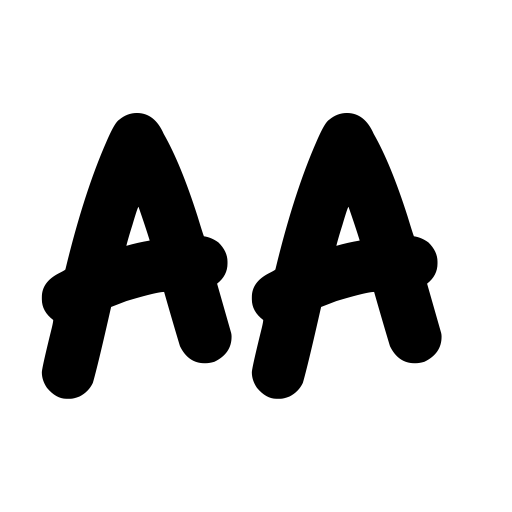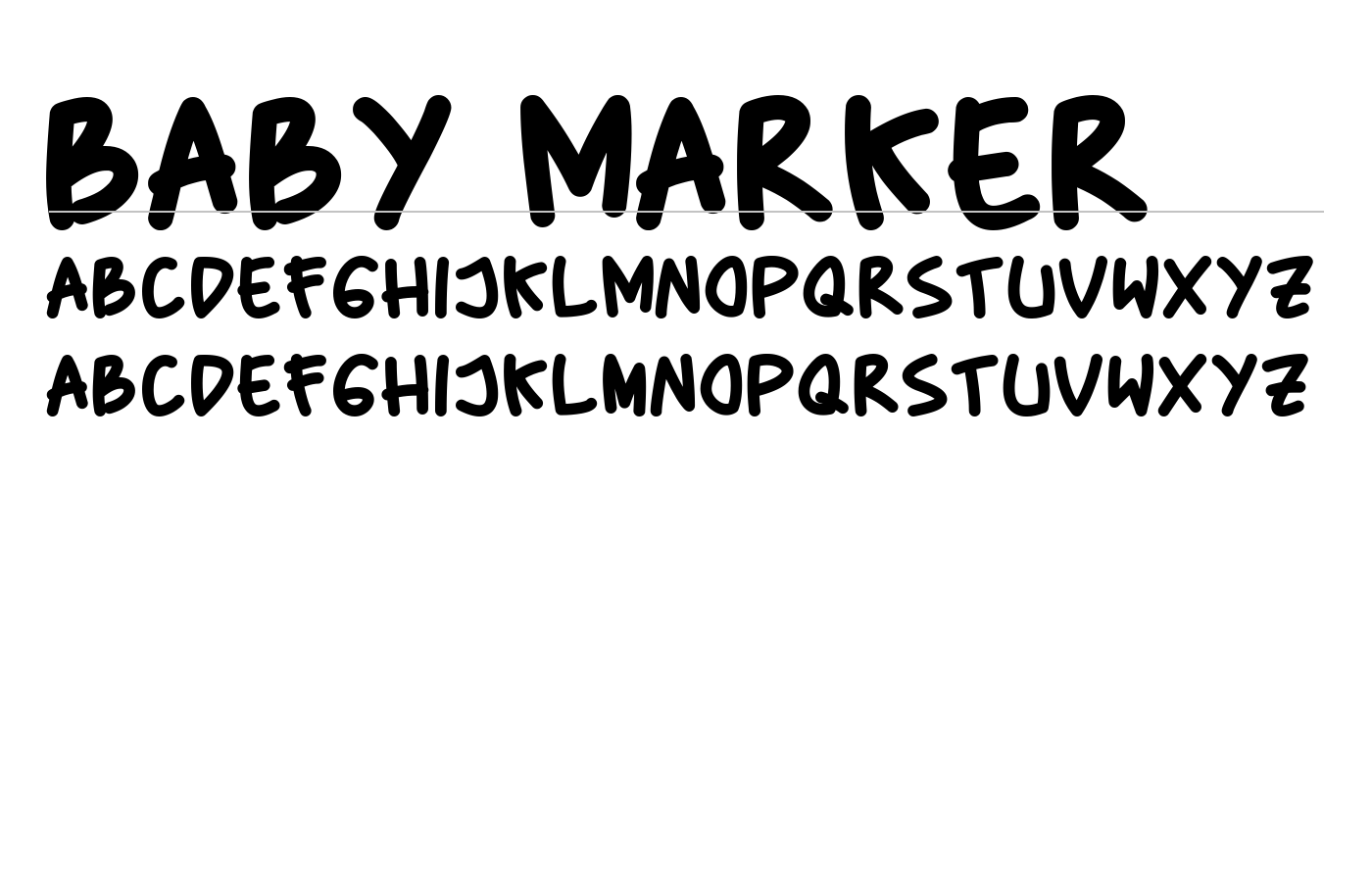
Baby Marker is a bold, playful handwritten sans serif font that feels casual and friendly with its chunky, rounded letterforms and uneven strokes, mimicking the look of writing with a thick marker. Its slightly condensed width and informal style make it perfect for creative, youthful designs like kids’ products, fun branding, or casual headlines where a warm and approachable vibe is desired. This font works best in display uses, packaging, posters, and any design that benefits from a lively, handmade touch.
Baby Marker Font
About Baby Marker Font
| Font family | Baby Marker Font |
| Designer | arukidz.fl |